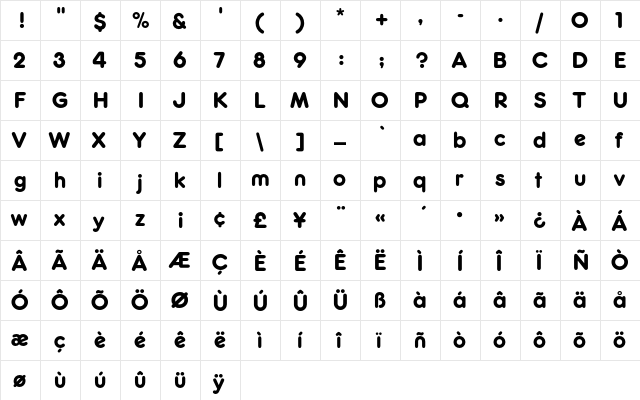
FrankfurterEF Medium Font Preview
FrankfurterEF Medium
Design Context for FrankfurterEF Typeface
FrankfurterEF offers clean, dependable letterforms without strong stylistic allegiance, making it a practical choice for designers who need flexibility.